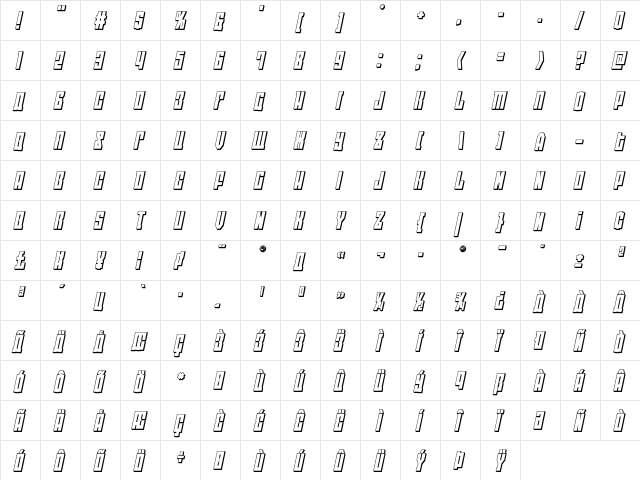
EAST-west 3D Italic Italic
Design Context for EAST-west 3D Italic Typeface
EAST-west 3D Italic offers clean, dependable letterforms without strong stylistic allegiance, making it a practical choice for designers who need flexibility. The slanted form adds forward momentum and visual energy.
Pro Tip: Use EAST-west 3D Italic for emphasis, pull quotes, and subheadings where its slanted energy can add rhythm to the layout.